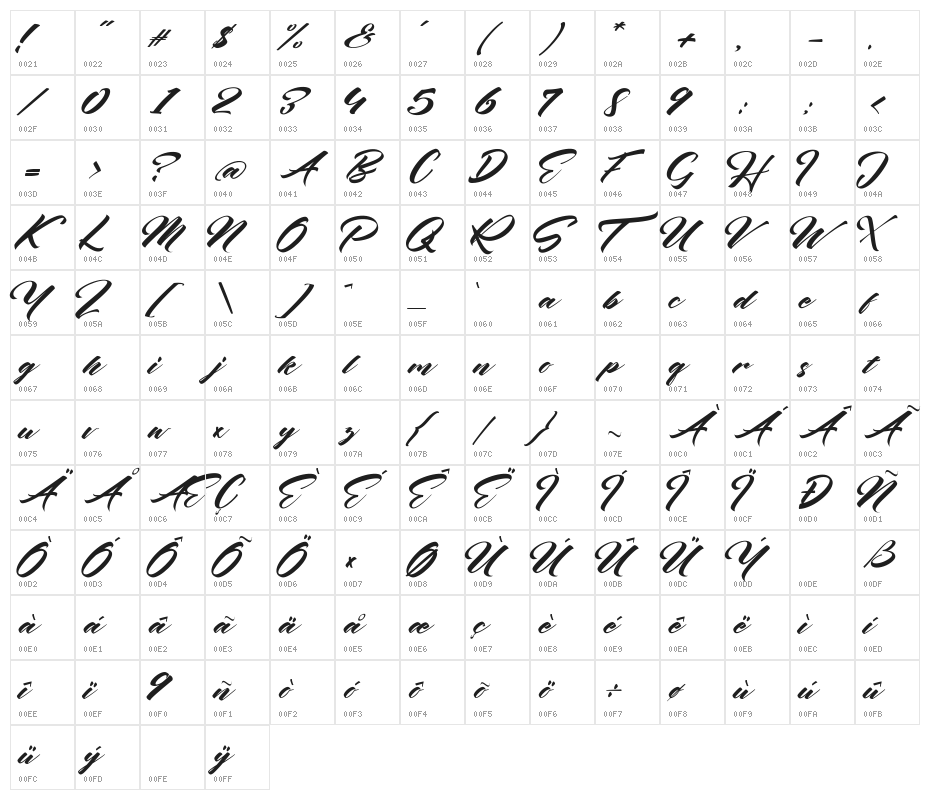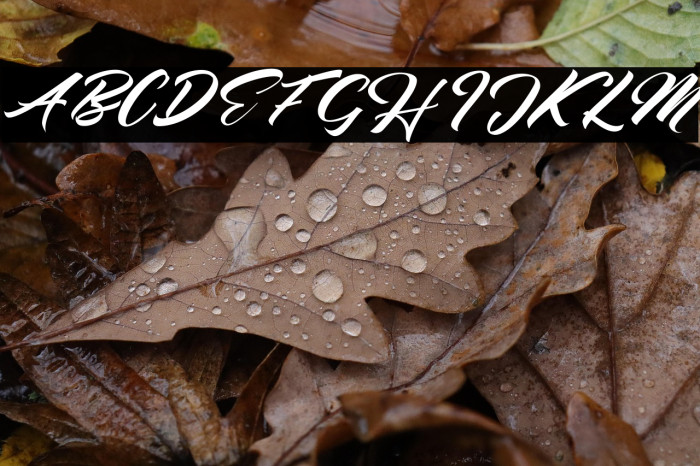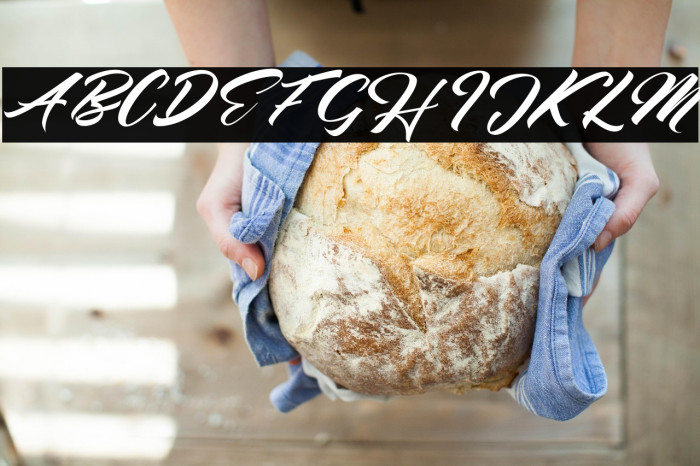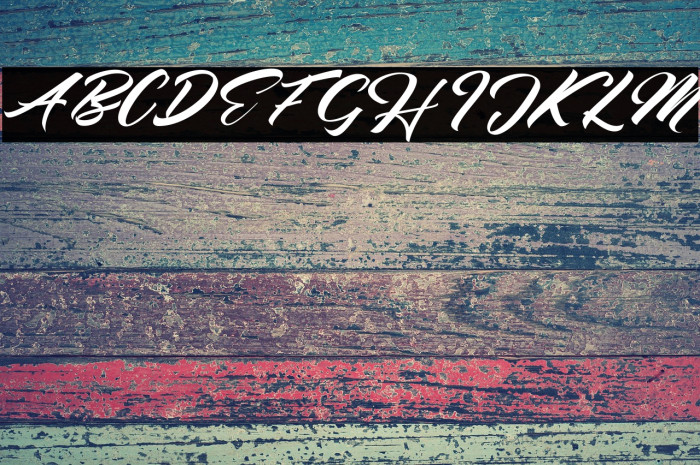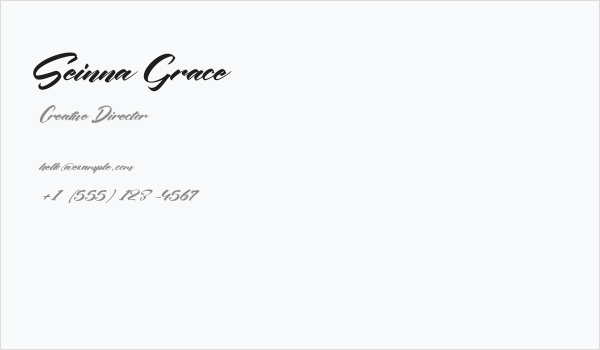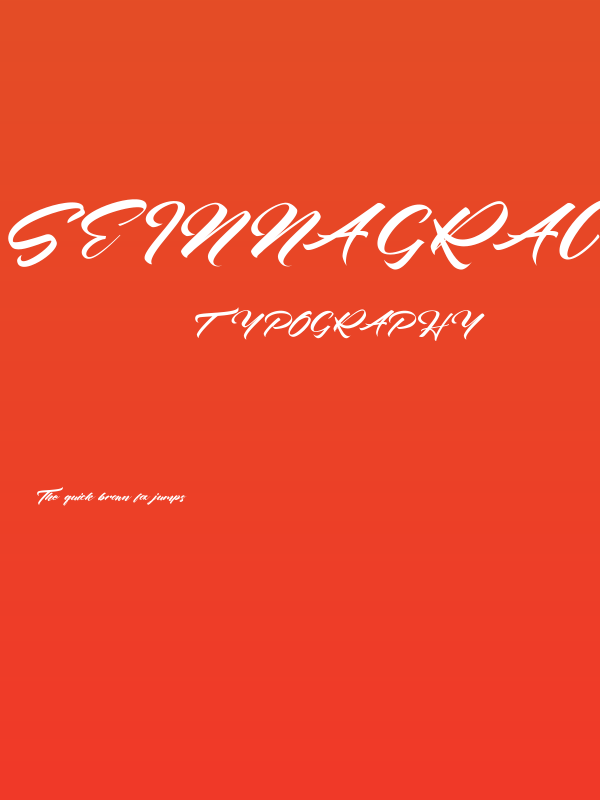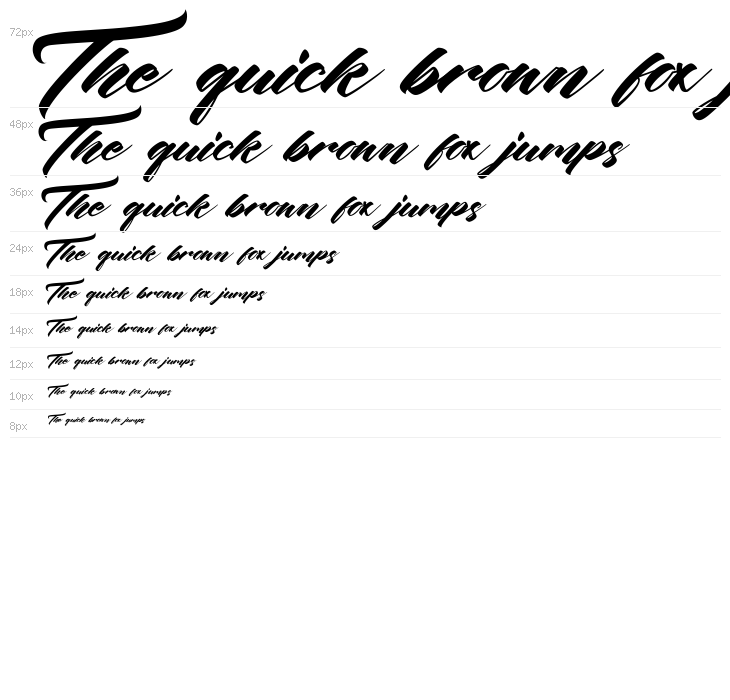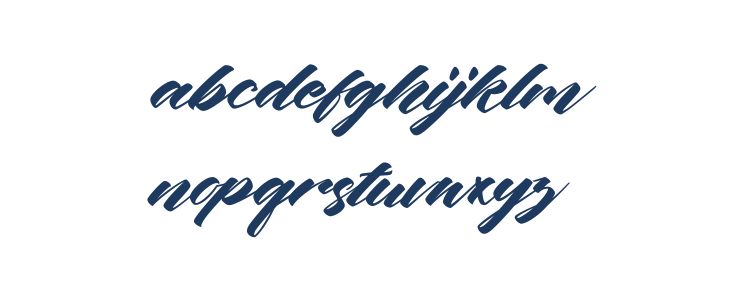
Seinna Grace Font
Seinna Grace Description
This font features a dynamic and elegant script style with a flowing, cursive design. The characters are interconnected, creating a sense of movement and fluidity. The uppercase letters are bold and expressive, while the lowercase letters maintain a consistent rhythm. The numerals and special characters are designed to complement the overall aesthetic, adding a touch of sophistication. The strokes are thick and consistent, providing a strong visual impact. This font is ideal for projects that require a personal and artistic touch, such as invitations, branding, and decorative designs.
| Proposed Projects | Ideal for wedding invitations, branding, logos, and decorative designs. |